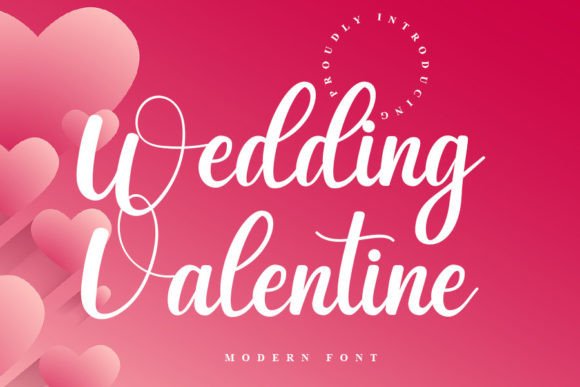
Welcome to the world of Wedding Valentine, an enchanting script font family that exudes both charm and elegance. This captivating creation by ABBAsalam is not just a collection of letters; it's an expression of artistry that adds a touch of magic to every design it graces. As the name suggests, Wedding Valentine is a perfect choice for wedding invitations, save-the-dates, and all the other paper pretties that make your special day unforgettable.
With its graceful curves and delicate swashes, Wedding Valentine feels like a breath of fresh air in the realm of fonts. It dances across the page like a melody, adding a layer of sophistication and romance to your words. Whether you're designing invitations for a rustic barn wedding or a chic city soirée, Wedding Valentine is the perfect escort to guide your guests through your love story.
But Wedding Valentine's allure extends far beyond the realm of weddings. Its versatility makes it a must-have for any creative toolbox. From thank-you cards to logos, quotes to greeting cards, this font adds a touch of elegance to any project. Its handwritten charm brings a sense of warmth and authenticity to your designs, making them feel personal and inviting.
But what truly sets Wedding Valentine apart is its ability to evoke emotion. Its delicate strokes and flowing lines have a way of capturing hearts and creating a lasting impression. Whether you're using it for a business card or a heartfelt letter, Wedding Valentine has the power to make your words come alive.
So why settle for ordinary fonts when you can have Wedding Valentine? Let this enchanting script take your designs to new heights, adding a touch of magic and elegance to every project you create. Embrace the beauty of Wedding Valentine and let your creativity soar. Embrace the charm, embrace the elegance, embrace Wedding Valentine.